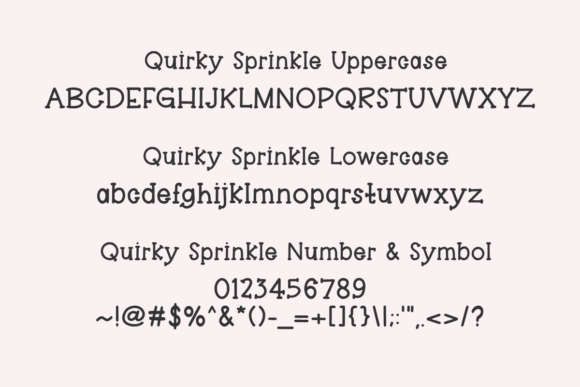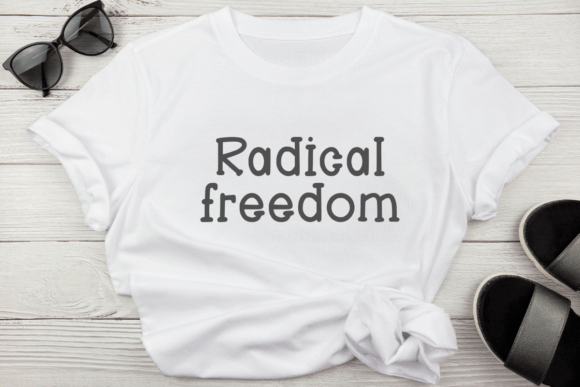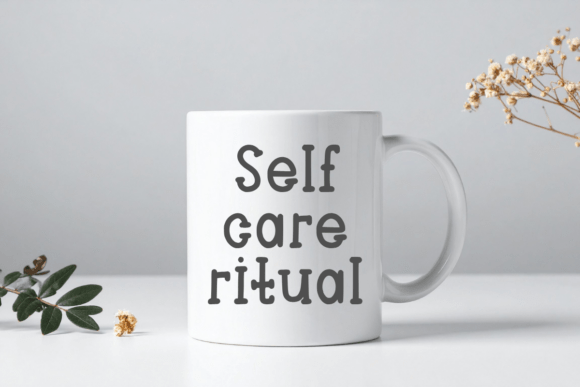
Introduction to Quirky Sprinkle Font
Have you ever found yourself staring at a blank page, waiting for inspiration to strike? That’s exactly where I was when I stumbled upon the Quirky Sprinkle Font. Its delicate, handwritten charm instantly sparked an idea for a creative project I’d been putting off for weeks. As a designer, I know the importance of having the right resources at our fingertips to bring our ideas to life.
The Quirky Sprinkle Font is more than just a pretty face – it’s a valuable addition to any design arsenal. This elegantly minimalist font excels in adding a touch of sophistication to various creative projects, from planners and interior designs to stickers and labels. With its high-quality design and transparent background, it’s perfect for crafting and printing on a variety of surfaces, from tumblers and mugs to tote bags and more.
Key Features of Quirky Sprinkle Font
- Unique Design: The Quirky Sprinkle Font is a one-of-a-kind design resource perfect for creative projects that require a touch of whimsy and playfulness.
- High-Quality Typography: This font features crisp, high-quality typography that ensures your text stands out in any design.
- Transparent Background: The transparent background of this font makes it easy to overlay on any image or design, giving you complete control over your creative project.
- Perfect for Creative Projects: The Quirky Sprinkle Font is ideal for use in children’s book illustrations, party invitations, and other creative projects that require a fun and playful touch.
Honest Review: Quirky Sprinkle Font
As a designer, I’m always on the lookout for high quality design resources to elevate my creative projects. Recently, I stumbled upon the Quirky Sprinkle Font, and I’m excited to share my honest review.
- ✨ Unique and playful design style that adds a touch of whimsy to any project
- ✨ Transparent background option for easy editing and customization
The Quirky Sprinkle Font is perfect for designers looking to add a bit of personality to their work. The font’s quirky design style makes it ideal for projects that require a touch of whimsy, such as children’s books, party invitations, and social media graphics.
- ⚠️ Limited font sizes and styles available, which may limit its versatility
- ⚠️ Some users may find the font’s playful design style too distracting for more formal projects
Overall, I’m impressed with the Quirky Sprinkle Font’s unique design style and ease of use. While it may have some limitations, it’s a great addition to any designer’s toolkit, especially for creative projects that require a bit of personality.
Experiment with different font sizes, colors, and combinations to achieve the desired effect. Consider pairing the Quirky Sprinkle Font with other complementary fonts to create a unique visual identity.
The Quirky Sprinkle Font is perfect for creative projects such as branding, advertising, social media, and editorial design. Its versatility and high-quality design make it a valuable resource for designers and non-designers alike.